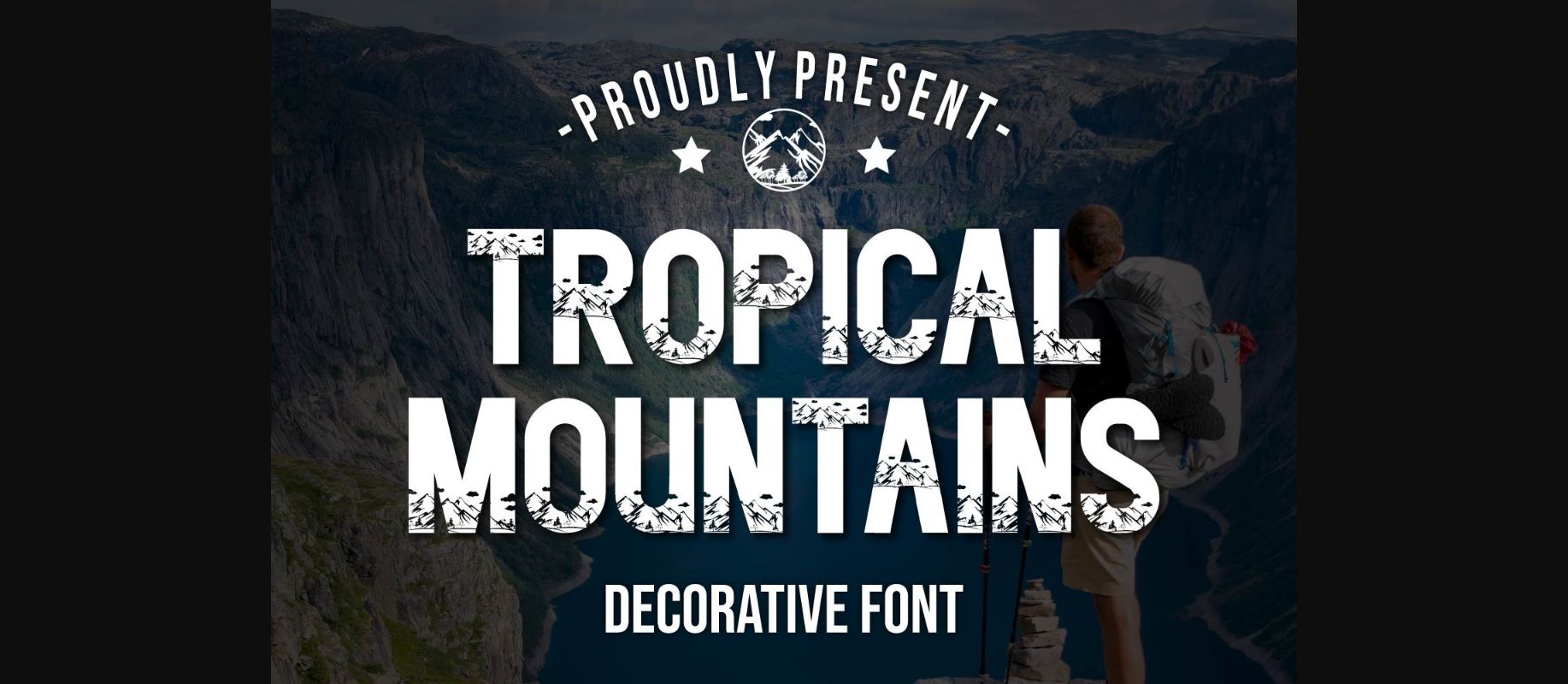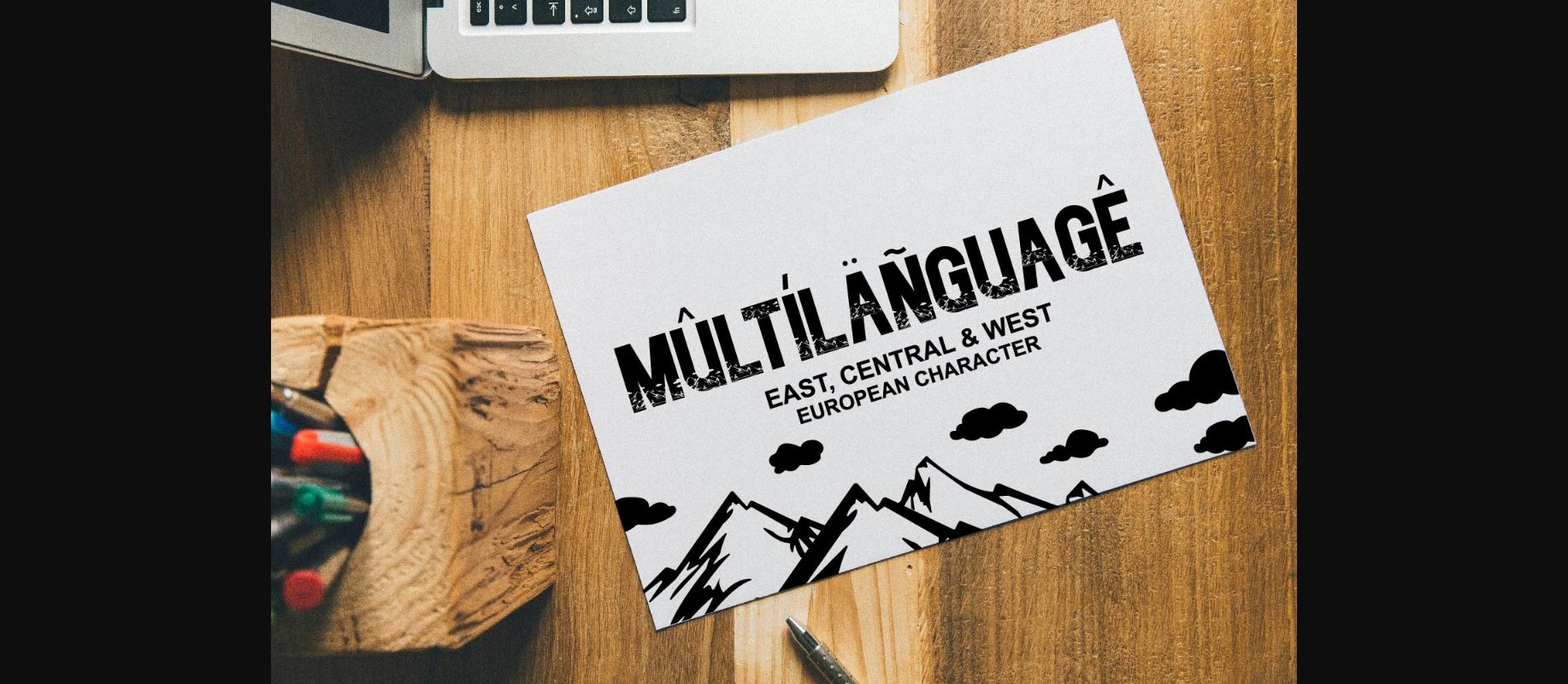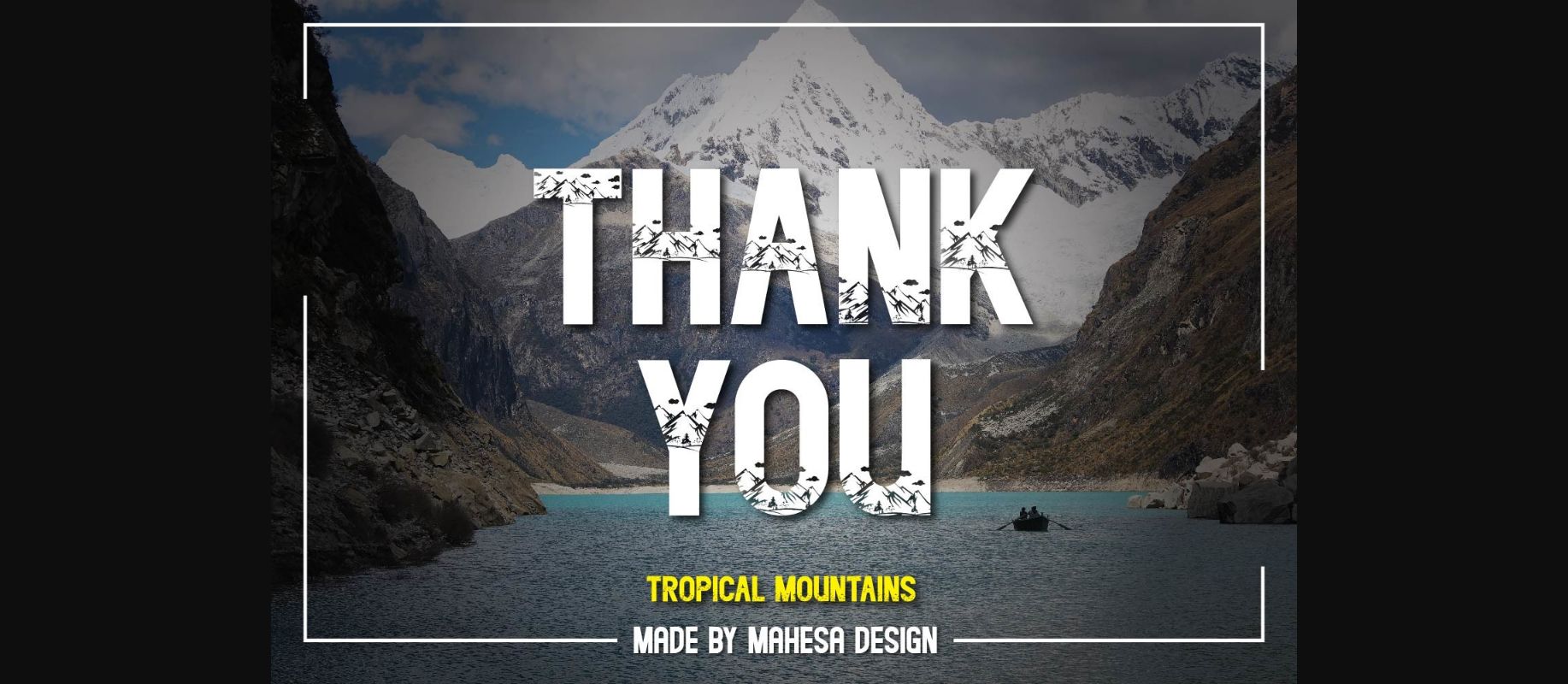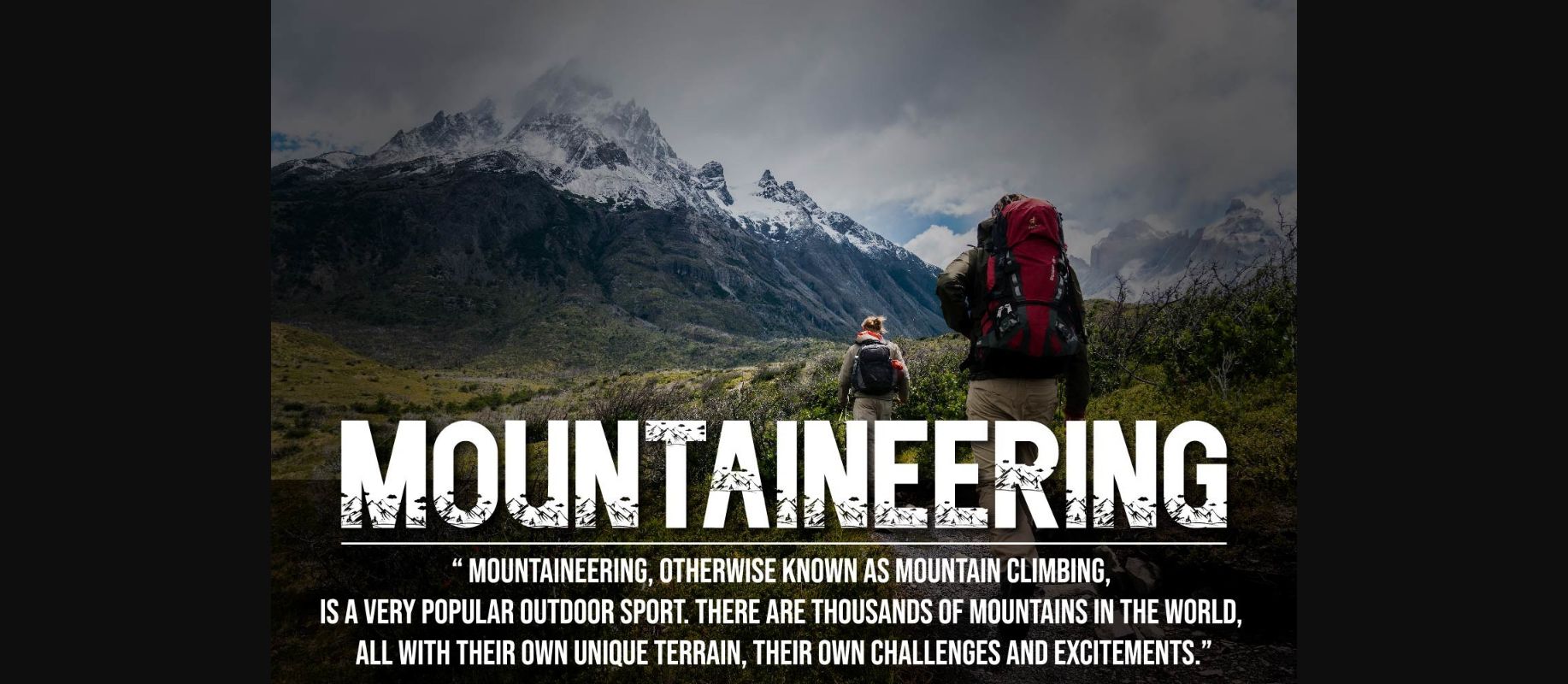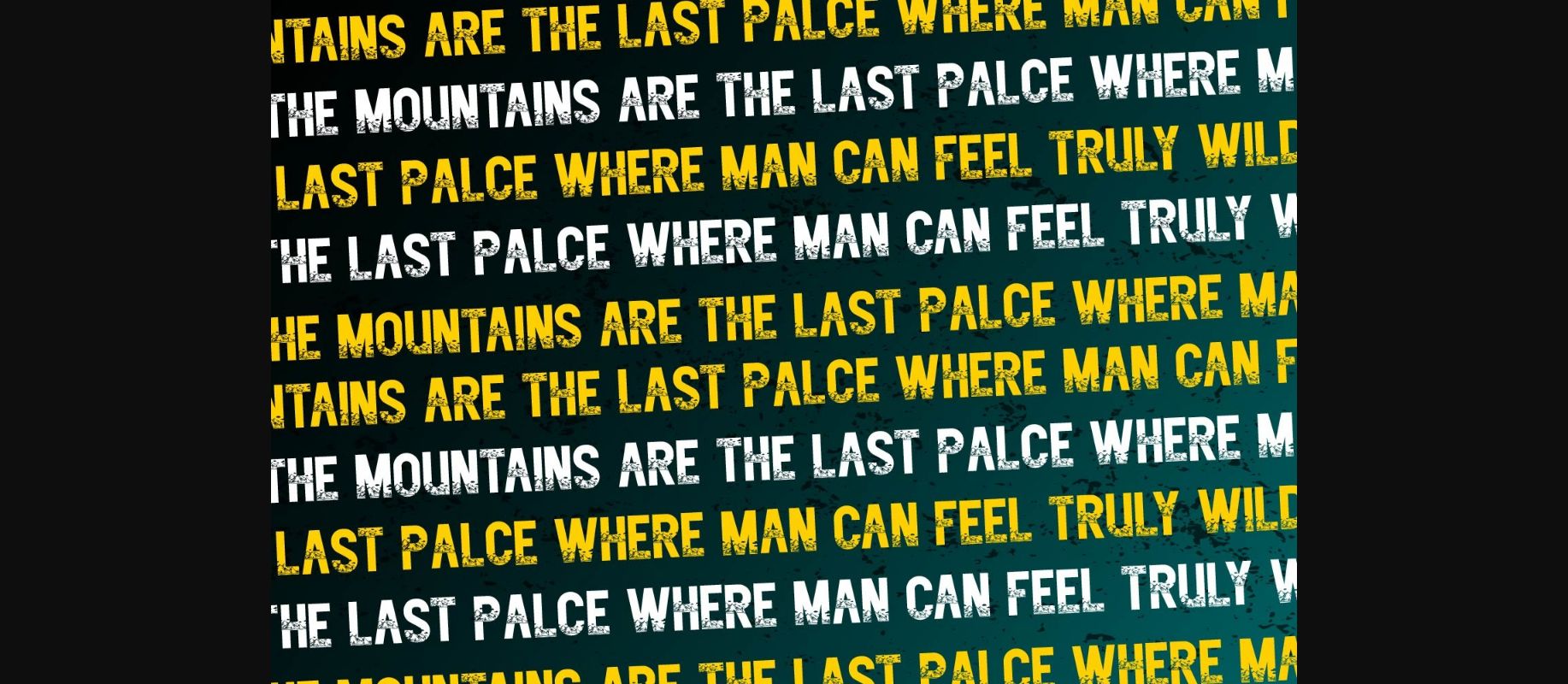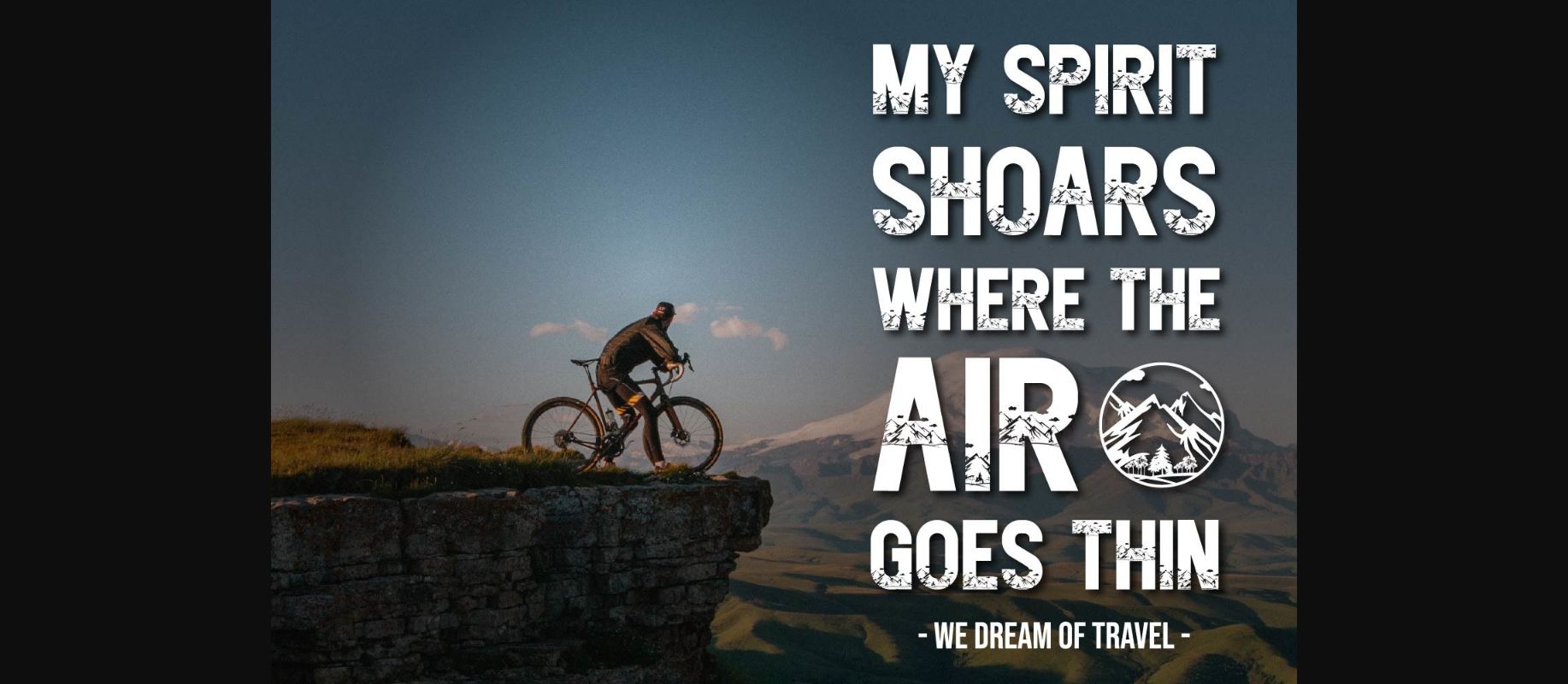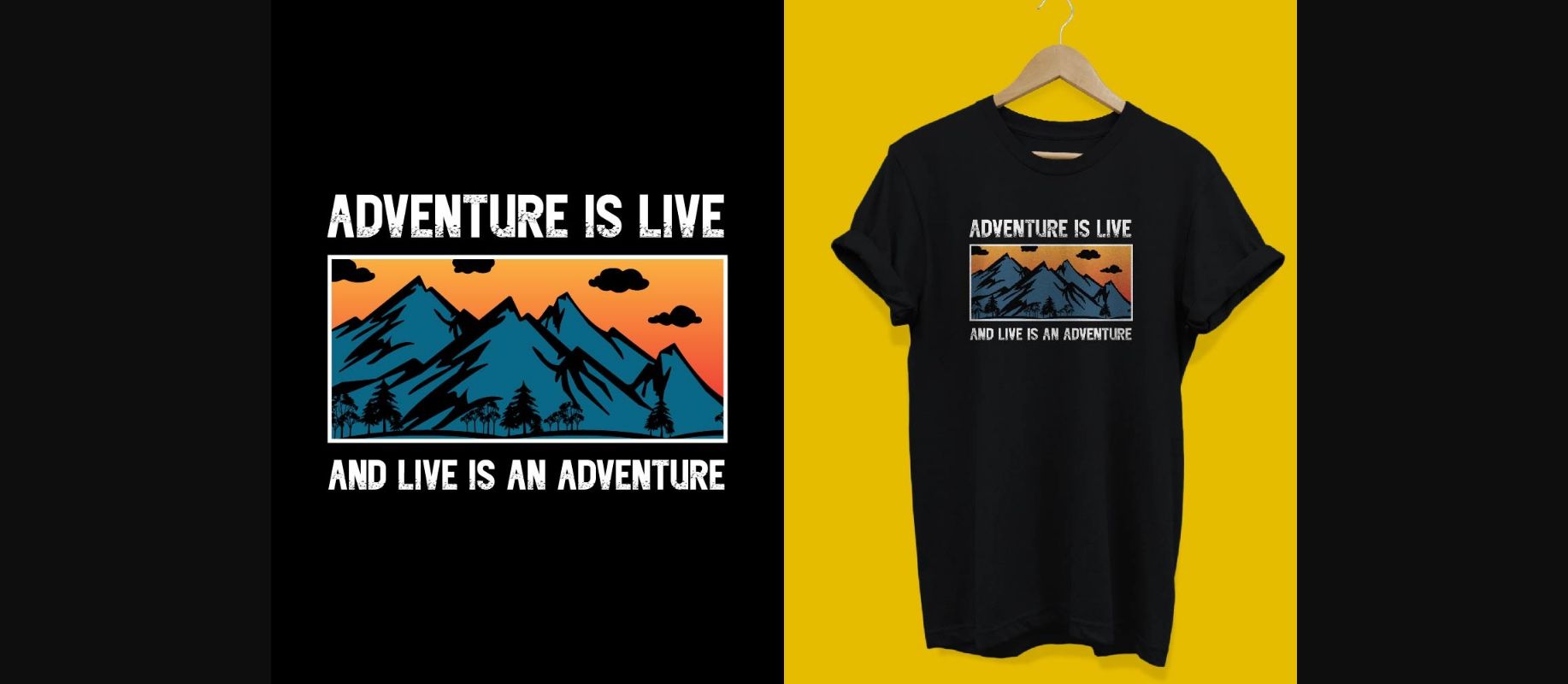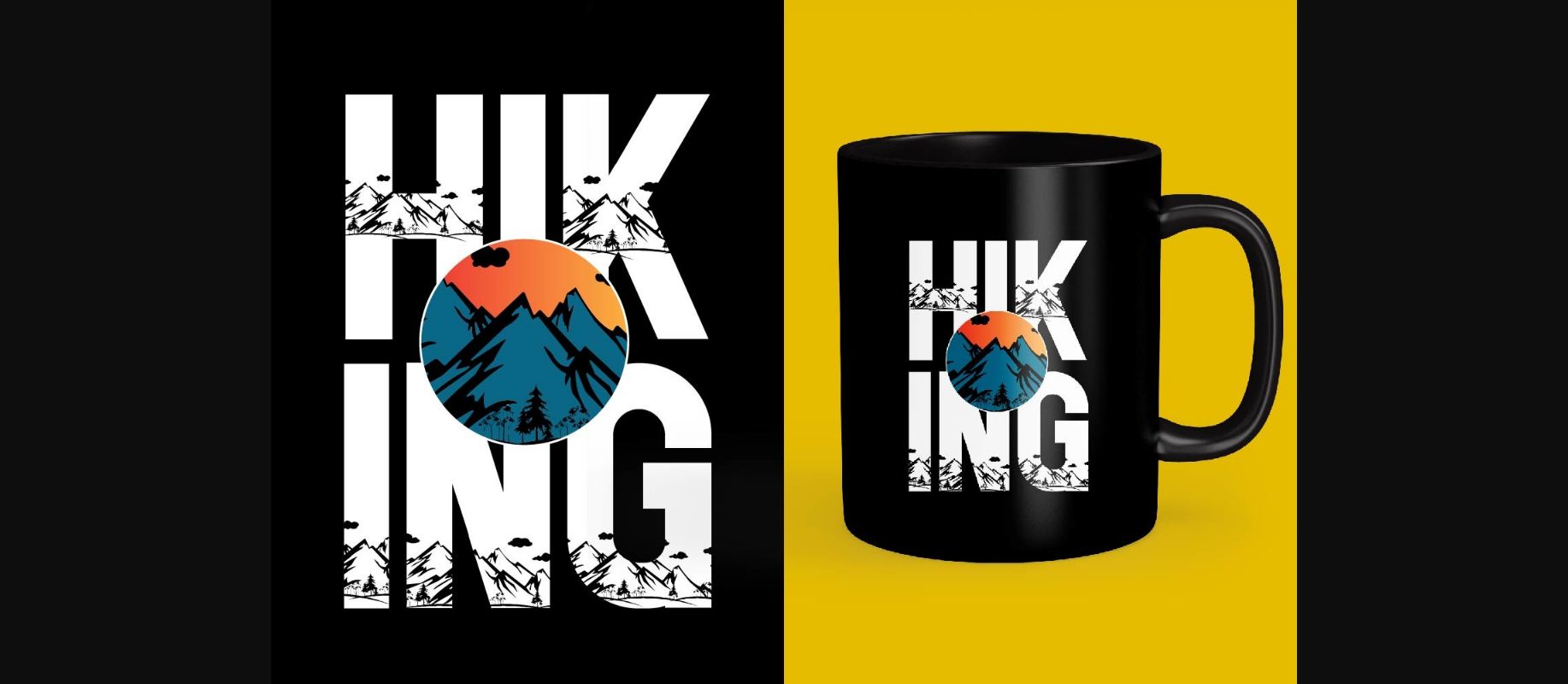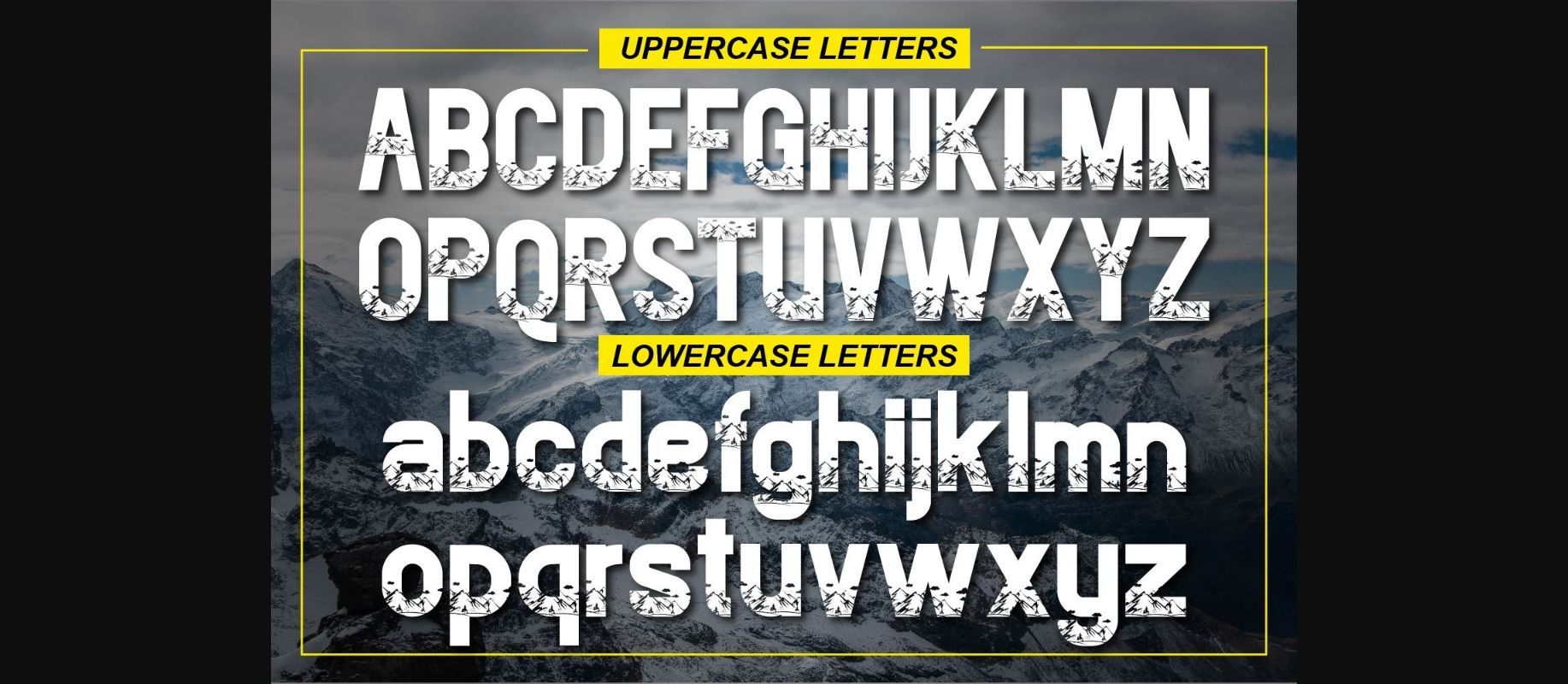
Tropical Montains Font
The Tropical Mountains Decorative Font is a stunning typeface that captures the essence of lush tropical mountains capes. Inspired by the majestic peaks and dense foliage, , this font brings a sense of adventure and exoticism to your design projects. With its intricate details and unique letterforms, it is perfect for creating eye-catching titles, logos, posters, and other creative works that evoke the beauty and allure of tropical mountain regions.